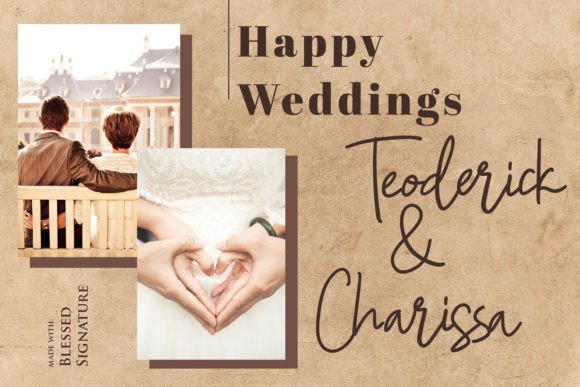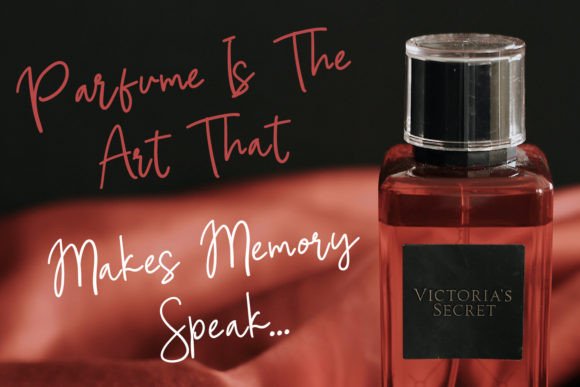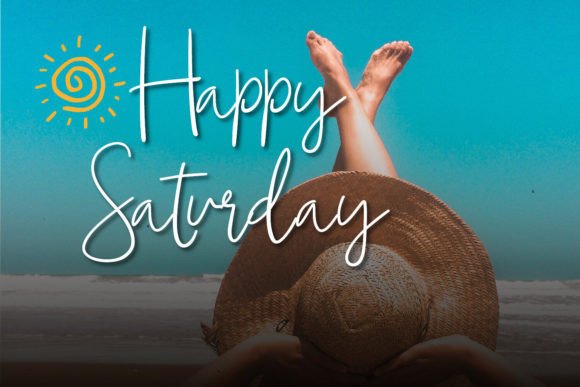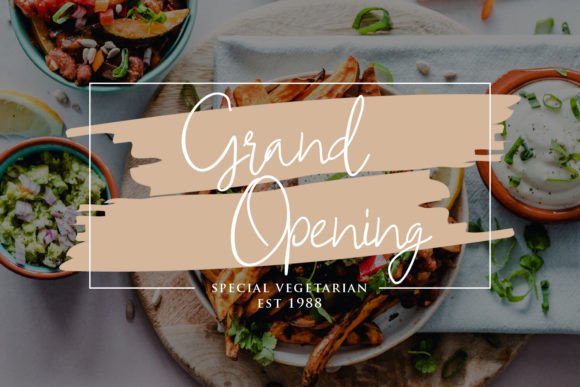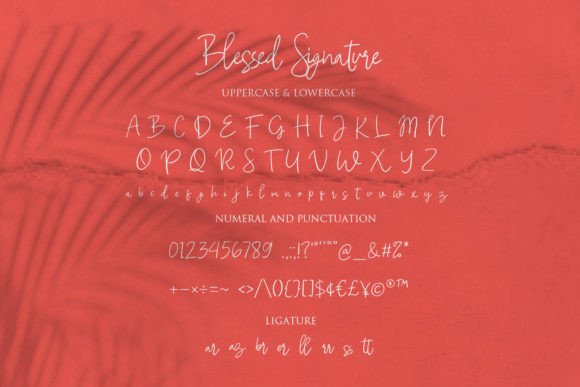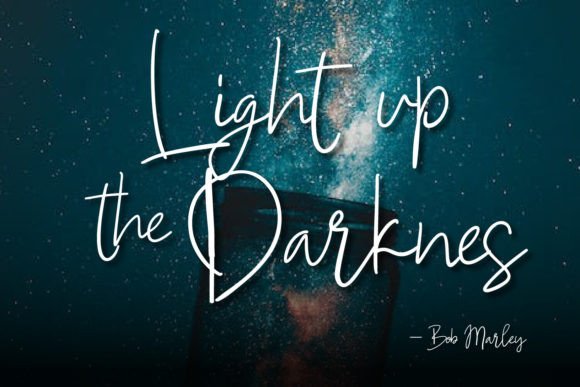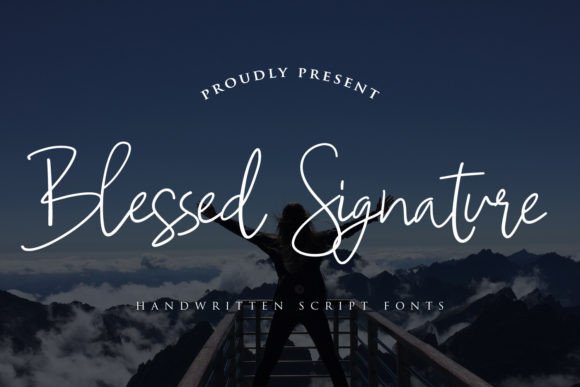
The Blessed Signature Font: Elevate Your Designs with Elegant Handwriting
Have you ever been in the middle of a design project, and suddenly, you’re stuck on finding the perfect font? I recall a recent experience where I was working on a branding project for a boutique client, and I just couldn’t find a font that captured the essence of their luxurious yet approachable vibe. That’s when I stumbled upon the Blessed Signature font, and it completely transformed my design. In this article, we’ll dive into the world of Blessed Signature, a beautiful handwritten script font that can elevate your designs to a whole new level.
What Makes Blessed Signature Special?
Blessed Signature is a versatile handwritten script font suitable for a wide range of projects, including branding, promotional ads, quote design, merchandise, social media, and more. Its elegant and flowing strokes can add a touch of sophistication to any design, making it perfect for special events and projects that require a beautiful handwriting taste.
An Honest Review of Blessed Signature
• ✨ Elegant and flowing strokes that add a touch of sophistication to any design
• ✅ Highly versatile and suitable for a wide range of projects
• 💫 Beautifully crafted to mimic the look of handwritten script
• 👍 Easy to read and understand, even in smaller font sizes
• ⚠️ Some users might find the font a bit too ornate for certain projects
• 🤔 Limited use of uppercase letters, which might be a concern for some designers
The Story Behind Blessed Signature
The story behind Blessed Signature is one of passion and dedication. The font was created by a talented designer who wanted to craft a beautiful handwritten script font that could capture the essence of elegance and sophistication. With careful attention to detail and a deep understanding of typography, the designer created a font that is both refined and approachable.
Q: What type of projects is Blessed Signature suitable for?
A: Blessed Signature is suitable for a wide range of projects, including branding, promotional ads, quote design, merchandise, social media, and more.
Q: Is Blessed Signature easy to read?
A: Yes, Blessed Signature is designed to be elegant and easy to read, even in smaller font sizes.